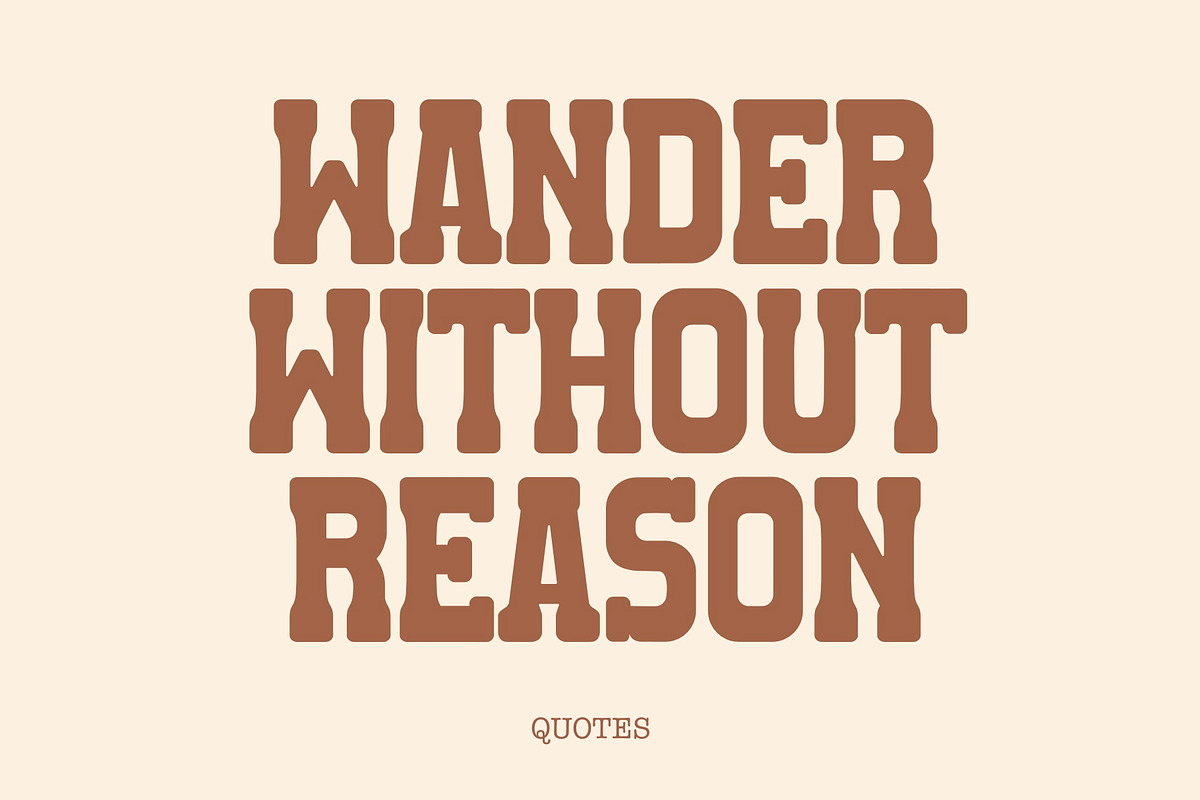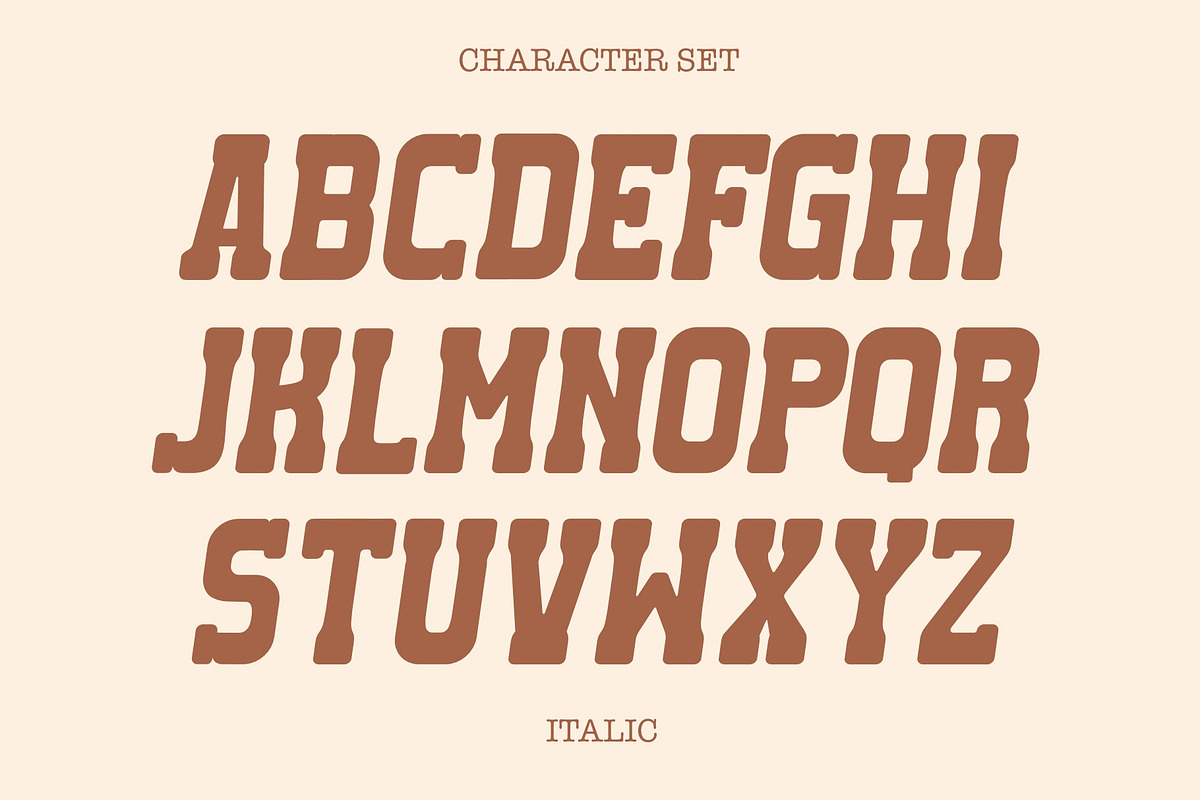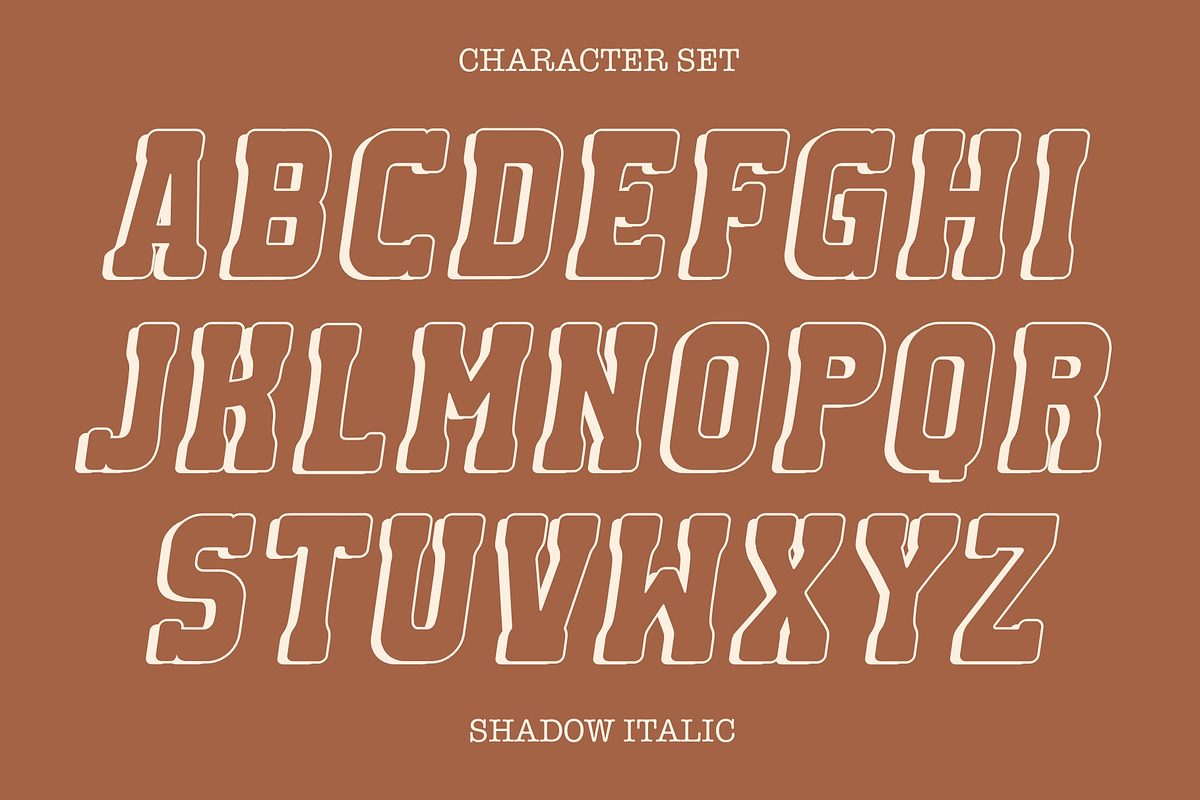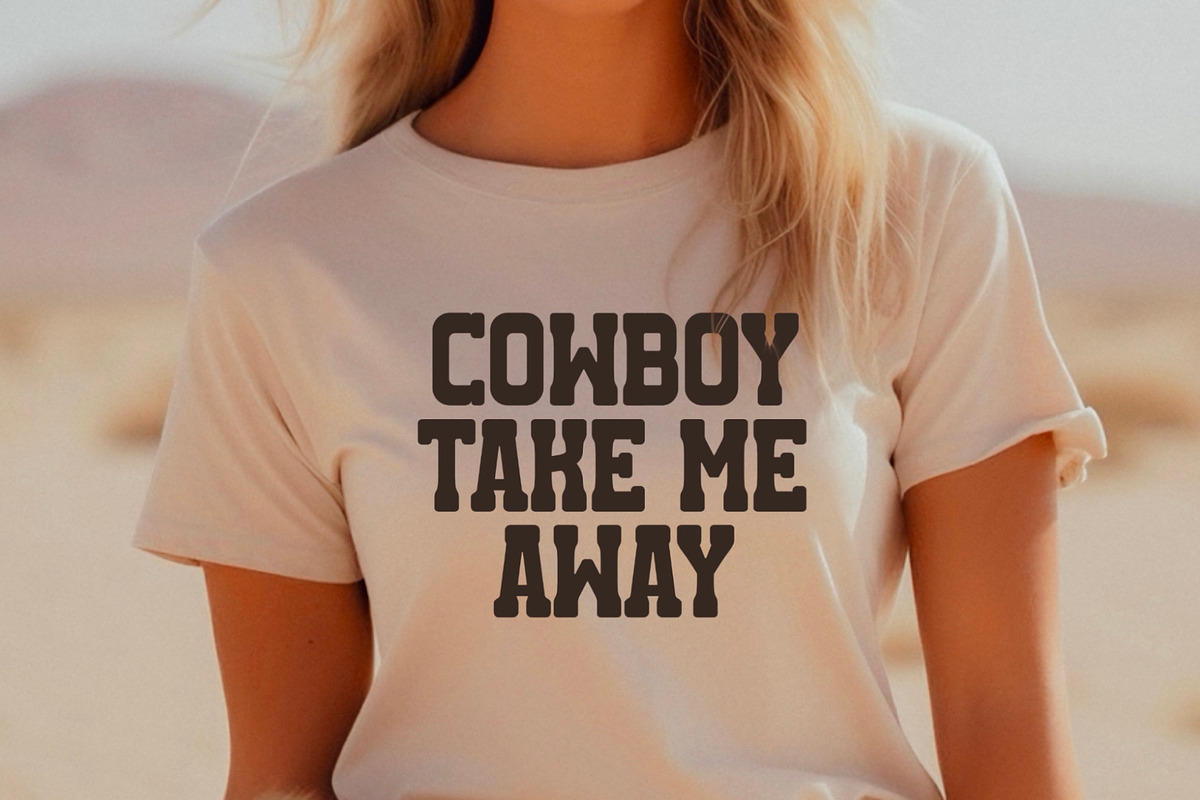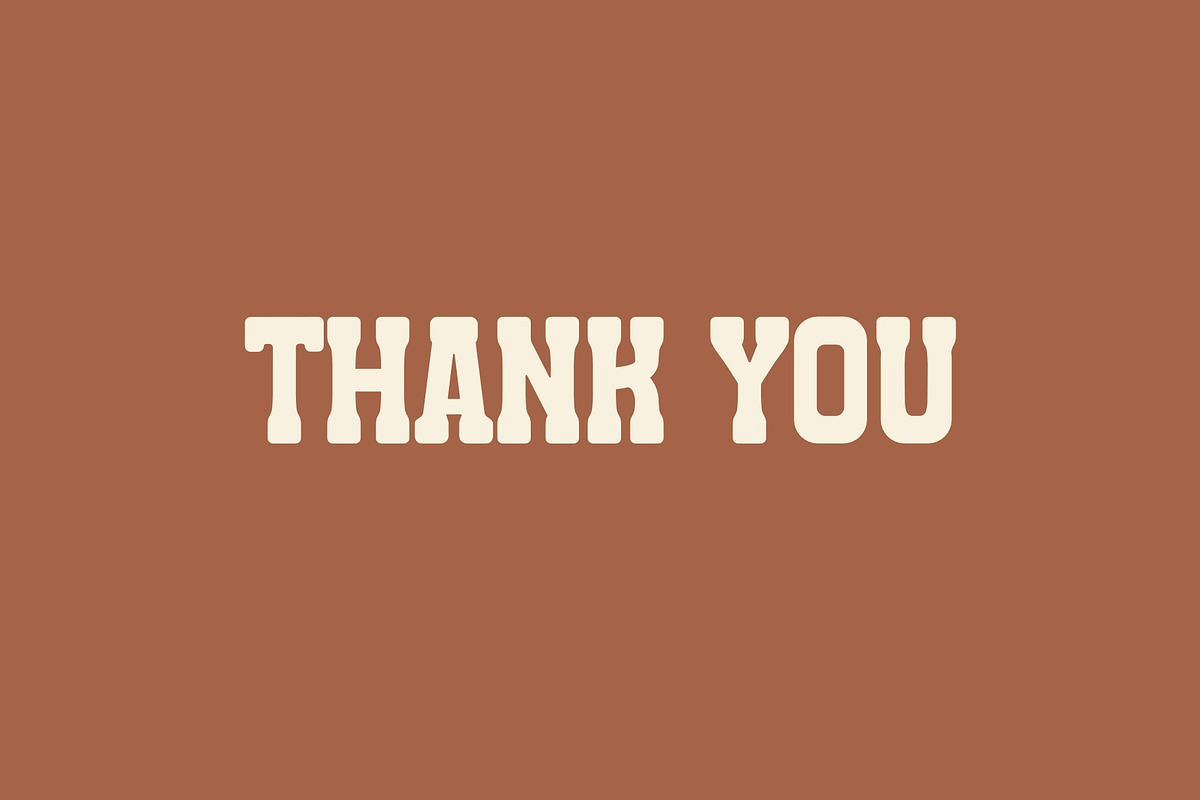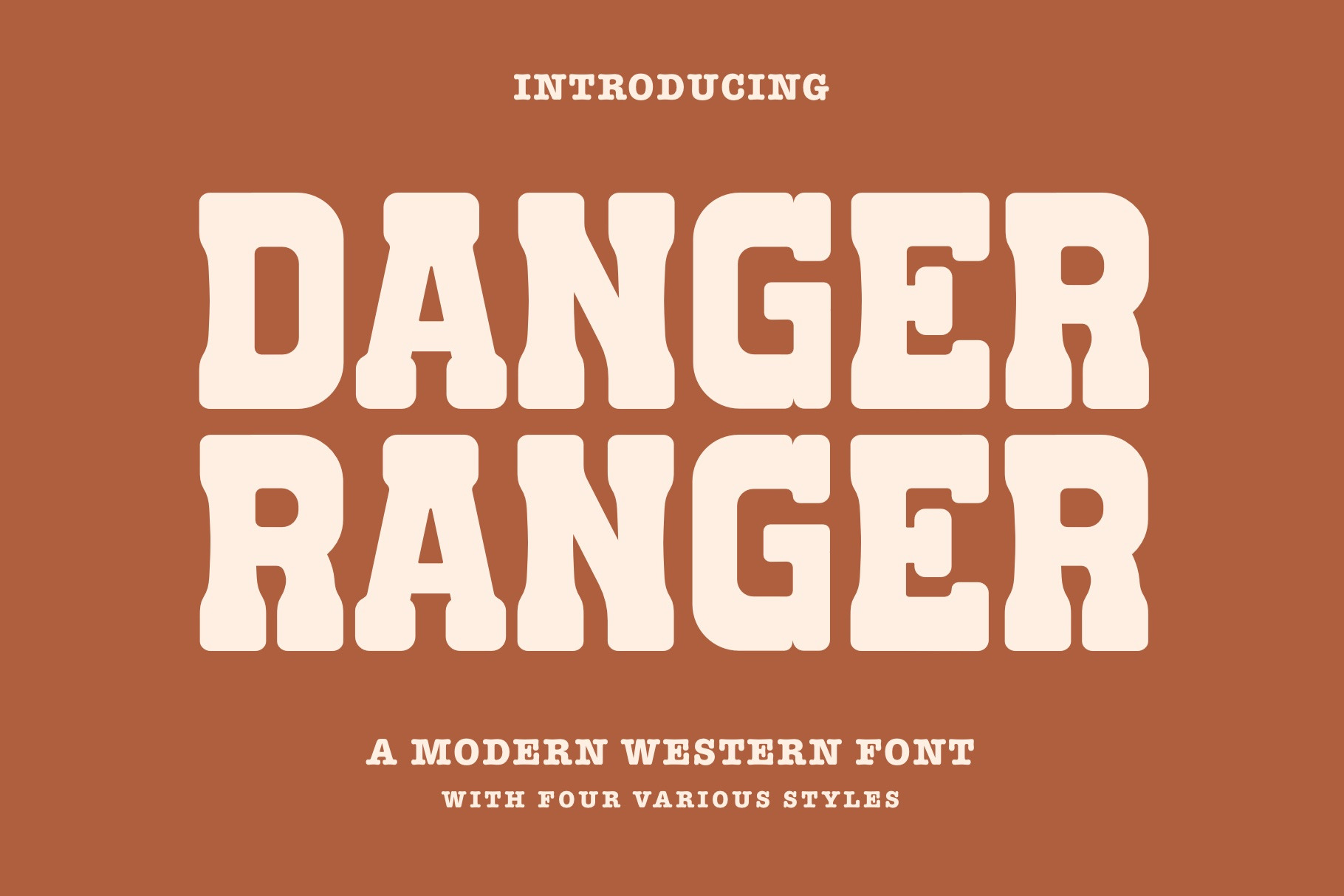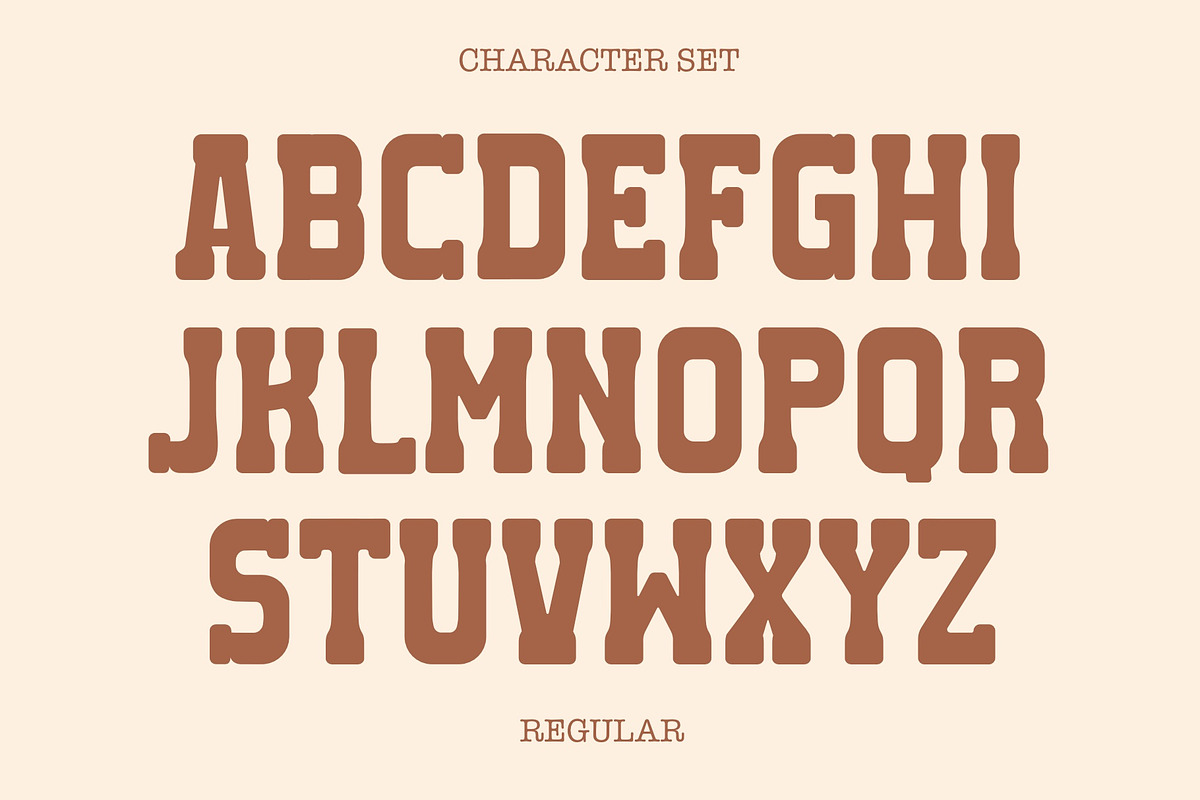
Danger Ranger Font -Modern Western
Danger Ranger is a captivating SerifFont Western Style that seamlessly blends vintage charm with modern sophistication. This typeface available in SVG format, compatible with advanced tools such as Cricut and Glowforge, and for use in Procreate. This font product pays homage to the rugged spirit of the Wild West, featuring distinctive serifs and intricate details that evoke a sense of adventure and authenticity. With its bold, yet refined strokes, Danger Ranger captures the essence of classic typography while infusing a contemporary flair.